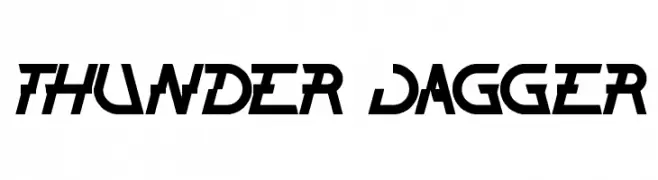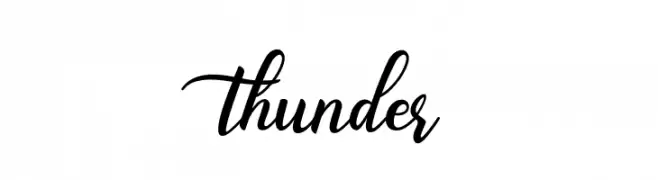
A playful and whimsical script font with dynamic strokes and a modern calligraphic style.
A bold, geometric font with a futuristic and tech-inspired design.
A bold, playful font with rounded outlines and a double-layered border.
A bold, gothic-style font with sharp, angular edges and dramatic flair.
A flowing, cursive script with elegant curves and bold flourishes.
A dynamic and elegant script font with flowing, cursive letterforms.
A bold, angular font with a futuristic and dynamic style.
A bold, outlined display font with a comic book style.
A modern, handwritten-style font with elegant, flowing strokes.